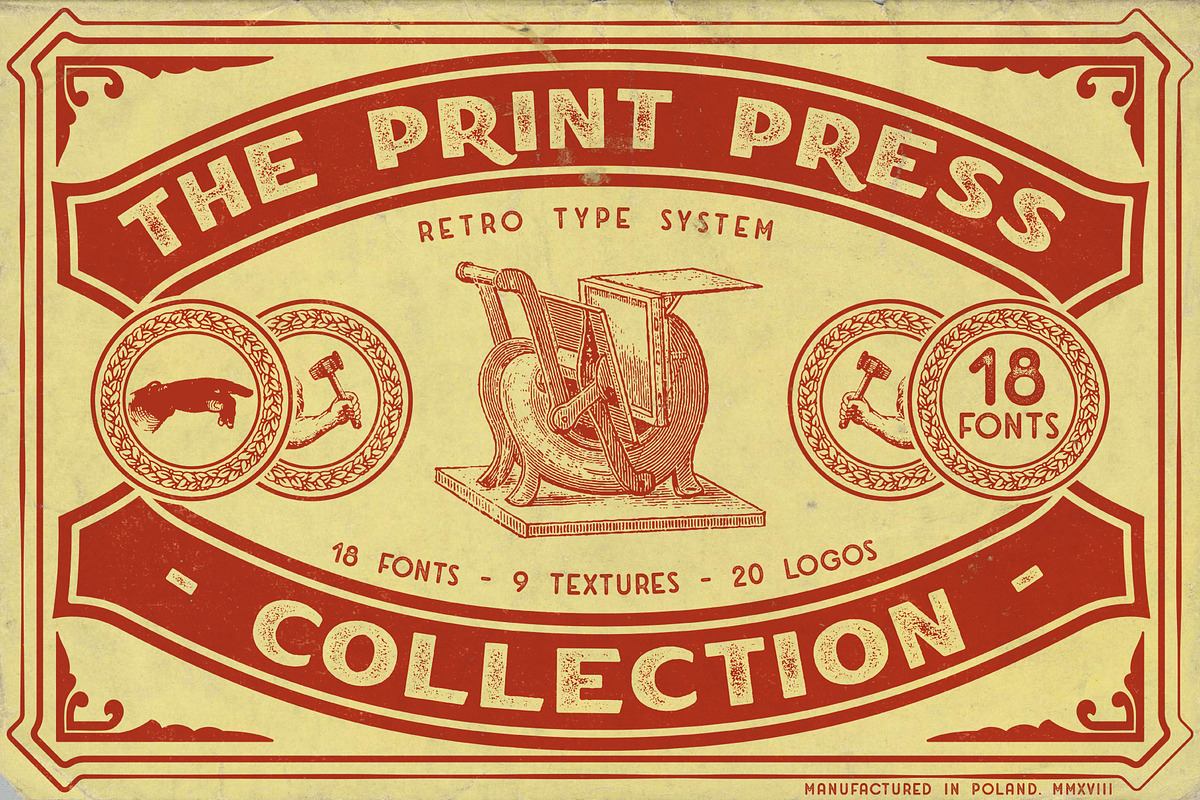
The Print Press Collection Free Download is a stunning bundle of vintage-inspired fonts that pay homage to classic letterpress printing. Featuring a mix of serif, sans-serif, and textured display styles, this collection is perfect for logos, packaging, posters, branding, merchandise, and editorial layouts that call for a handcrafted, authentic look.
Each font in the collection captures the raw charm of traditional print techniques—complete with subtle imperfections and retro character. Whether you're designing for a craft brand, a barbershop, or a nostalgic campaign, The Print Press Collection gives your typography a timeless, tactile feel.